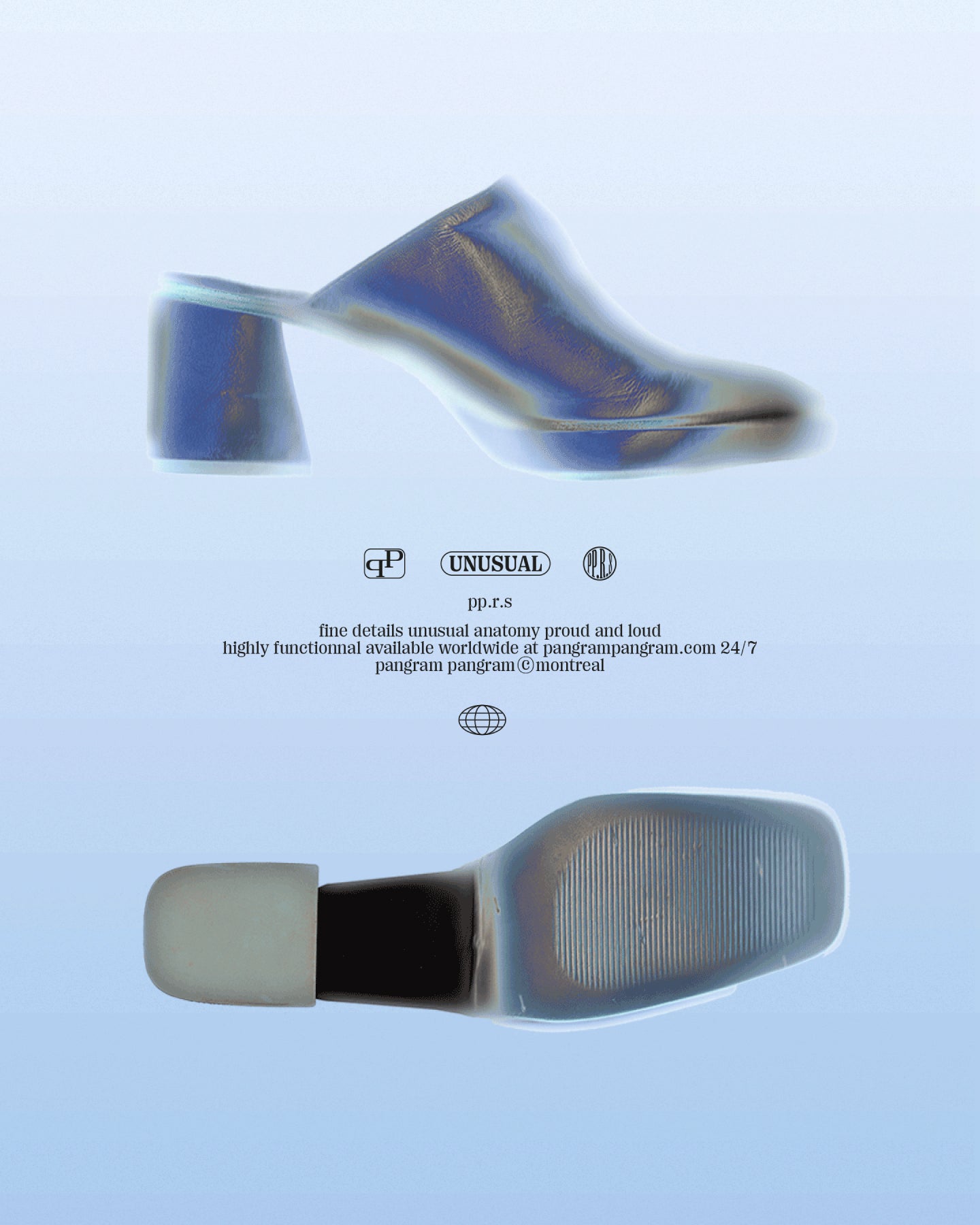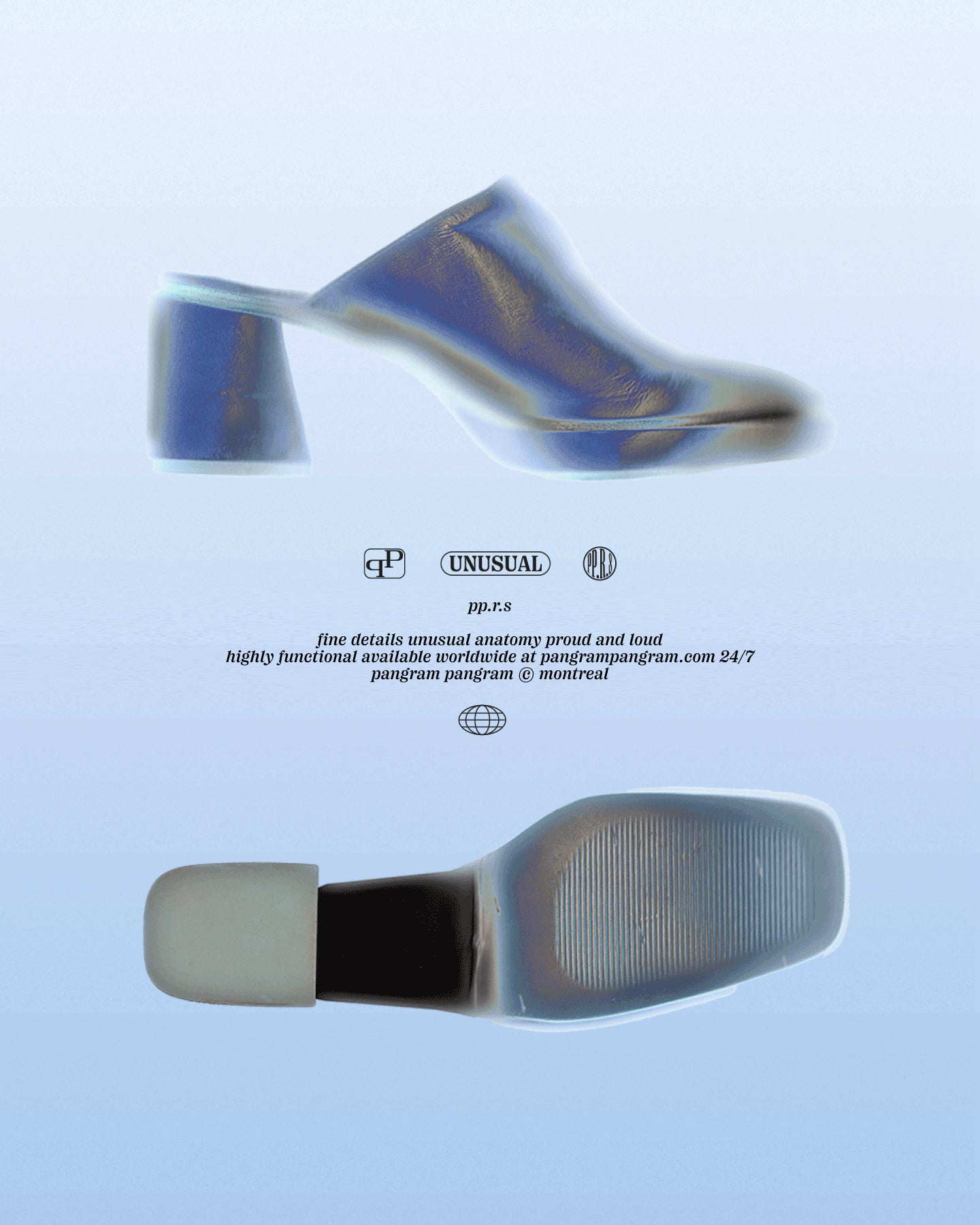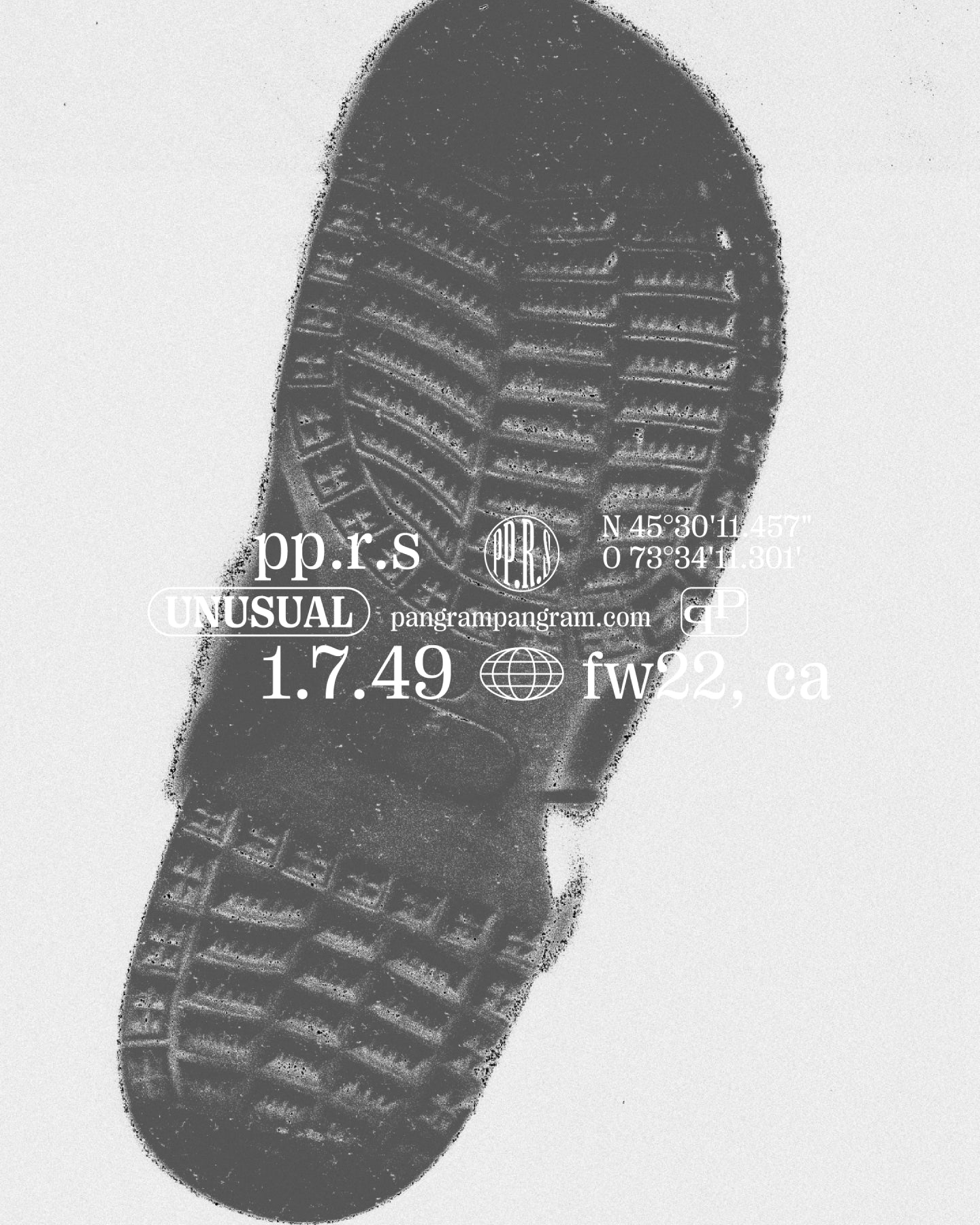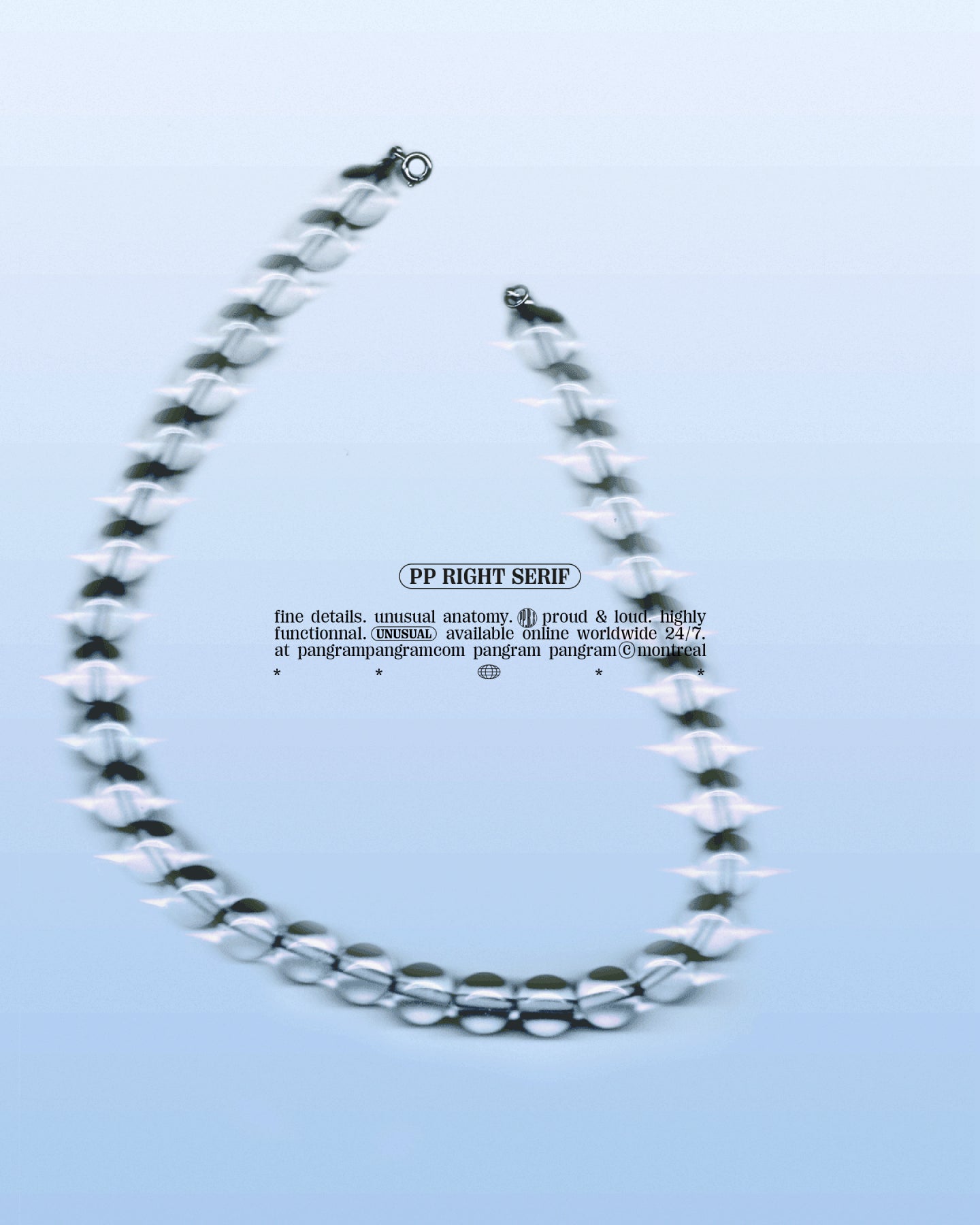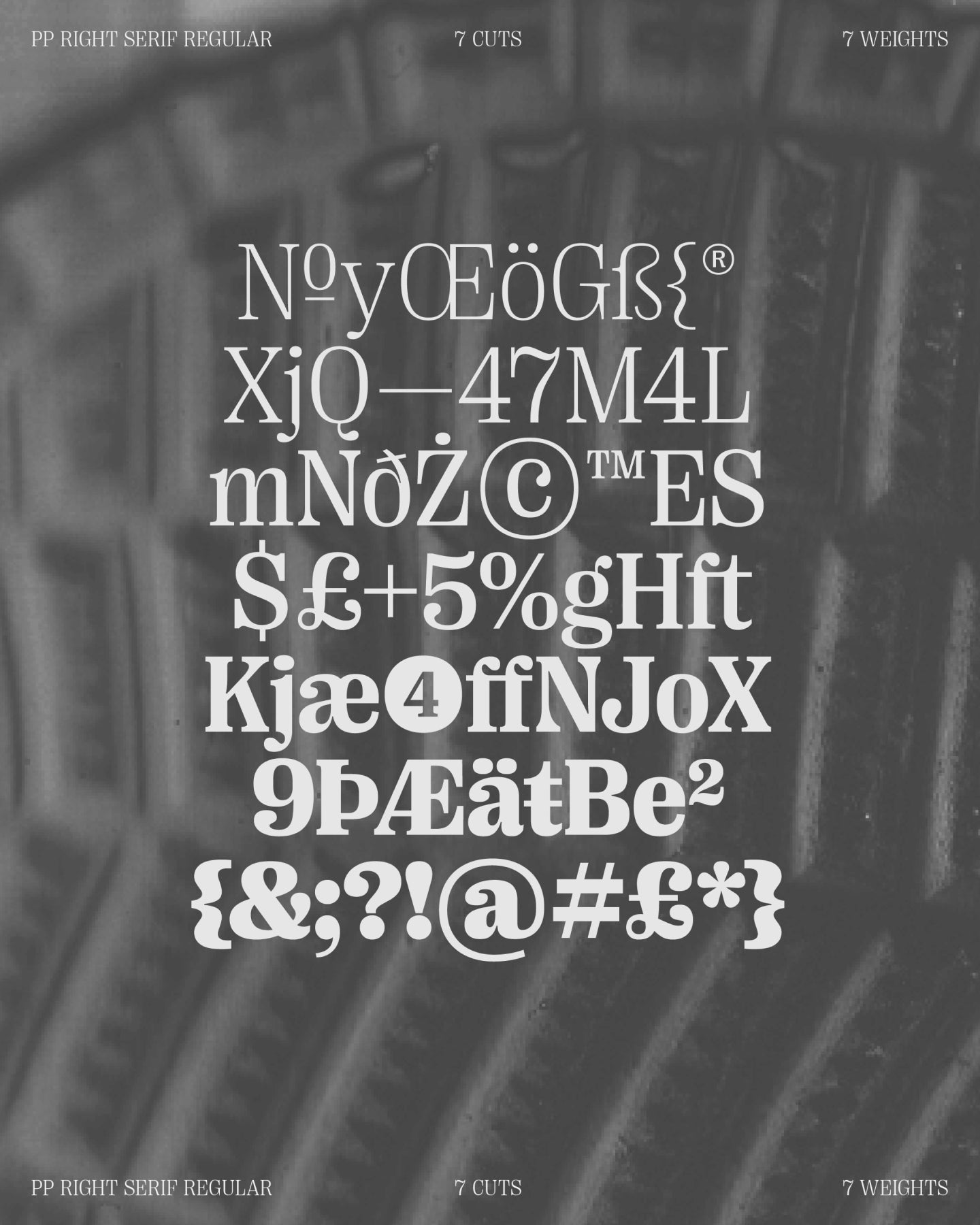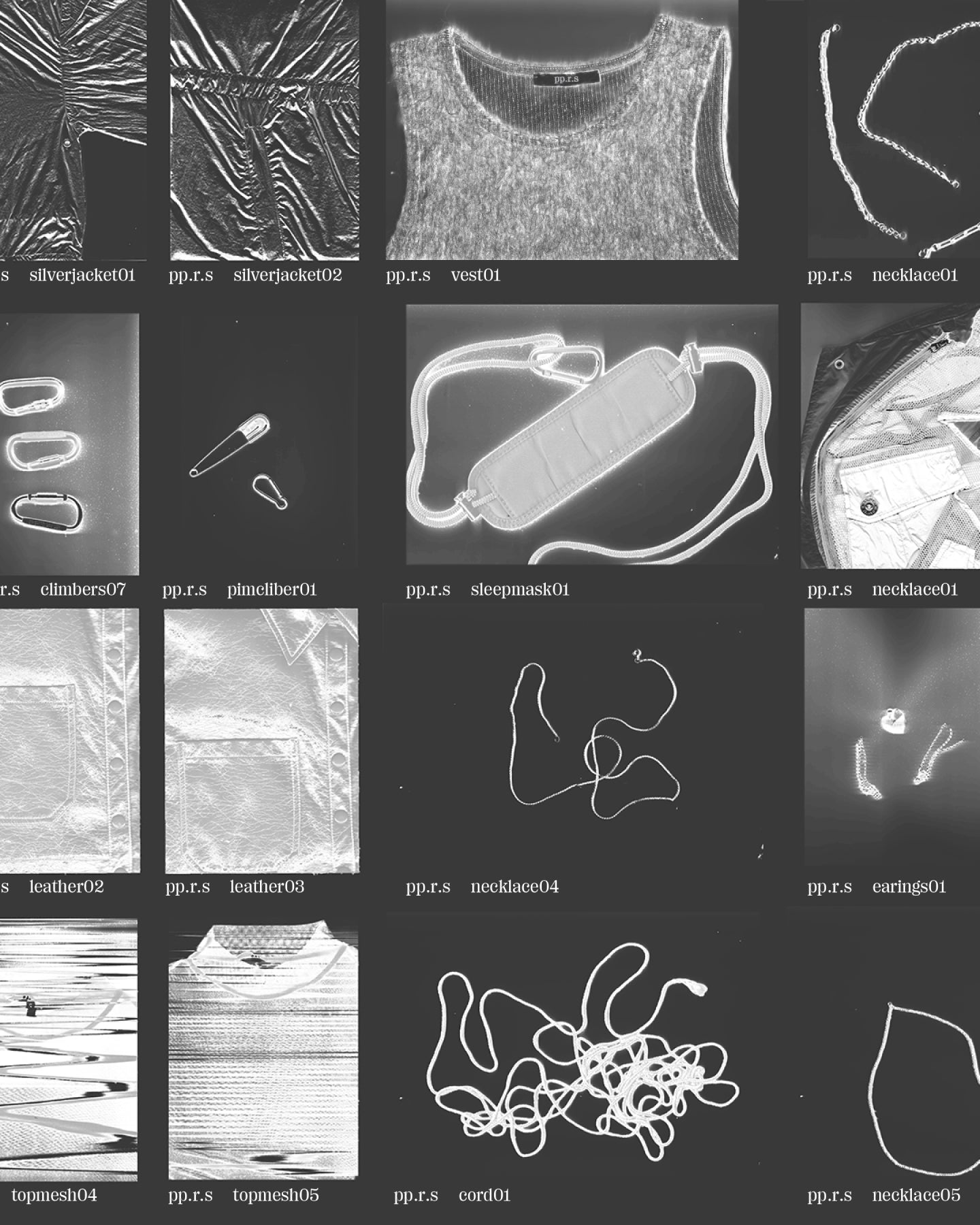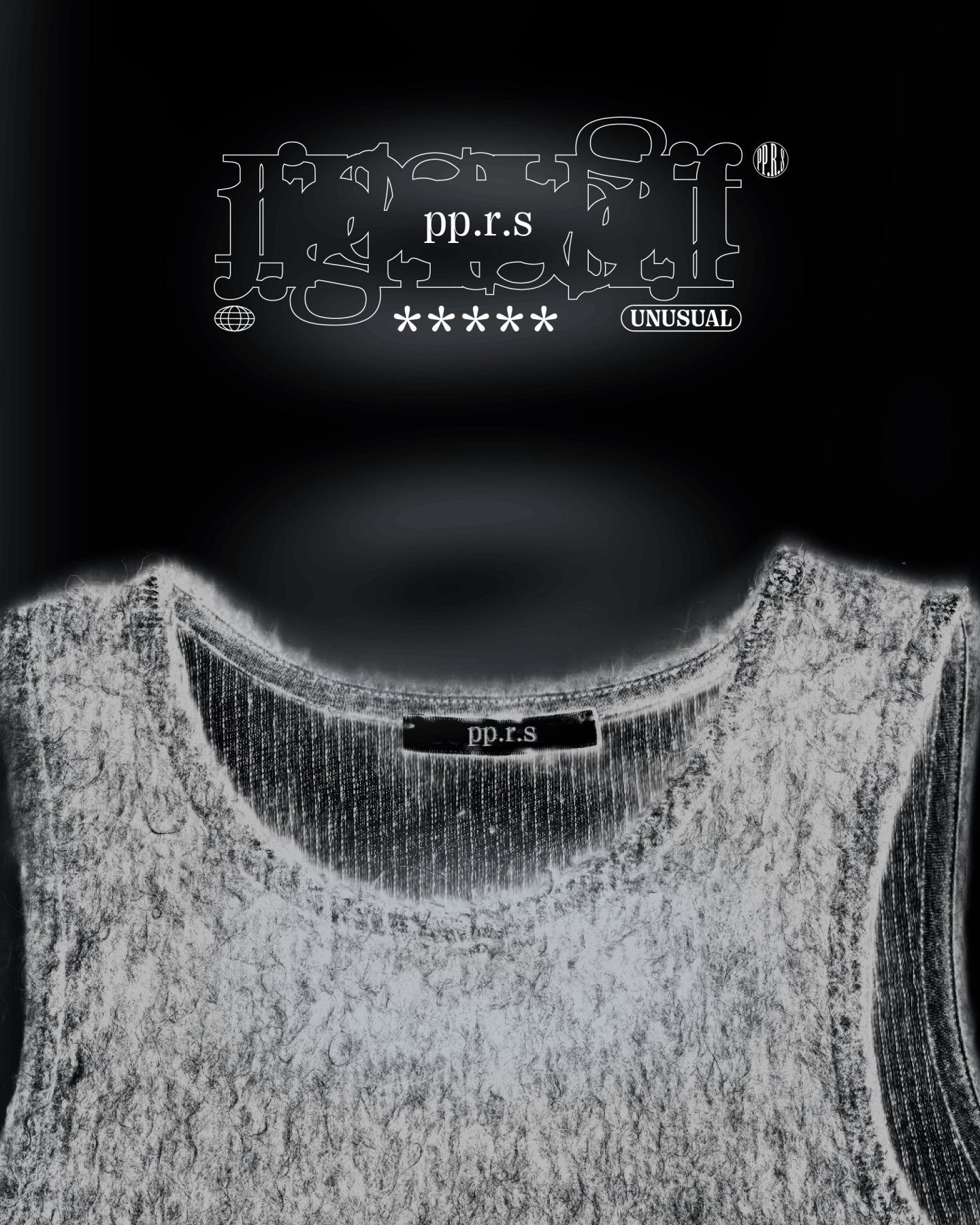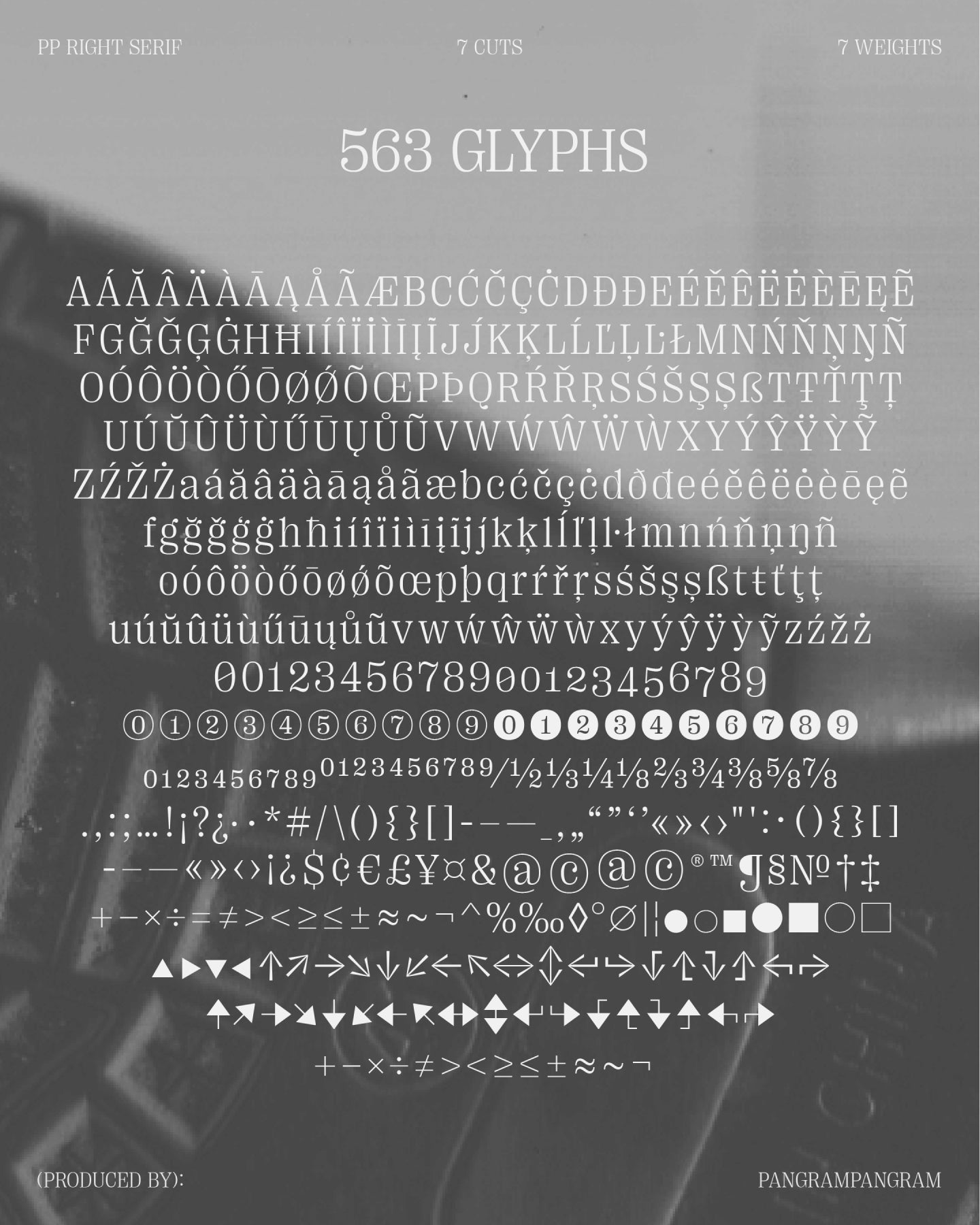
Right Serif Tall
Serif, but make it fashion.
Right Serif Tall
Right Serif grew out of a sans, and came back with style.
Right Serif Tall
Right Serif is not your grandmother’s serif. It’s what happens when a sans-serif spends a summer in Paris, hits the runway, and comes back with a whole new attitude. Born from Right Gothic, this typeface flips the script: instead of stripping down a serif, it builds one up from a grotesk foundation—resulting in something wholly original, highly functional, and quietly rebellious.
Think of it as the typographic equivalent of a collaboration between Helmut Lang, Maison Margiela, and Jil Sander—cool, minimal, experimental, but always intentional. That energy inspired the entire visual campaign: high contrast, inversion, disruption. The kind of design that makes you lean in, then look twice. Right Serif walks the line between structured and strange in the best way. It inherits the large x-height and clean rhythm of its sans-serif roots, but overlays that with sharply defined, slightly unconventional serifs and a moderate contrast that gives it both weight and finesse. It’s got character, but it’s not putting on a show—it’s letting the details speak. It’s a funky multitool: part workhorse, part wildcard. It stretches effortlessly across 7 weights × 7 widths, offering over-the-top display styles and dependable text cuts in the same family. Whether you’re designing a cutting-edge fashion mag, a bold identity system, or simply want a serif that doesn’t feel like every other serif, Right Serif steps up. Use it big, use it smart. It shines in editorial spreads, brand campaigns, and identity work where personality matters. But don’t sleep on its more restrained styles—those Regular cuts are quietly killing it in paragraph text too. Right Serif doesn’t just break the rules of serif design—it never bothered reading them in the first place.
Right Serif Tall is variable
Right Serif Tall's Features
Alternate a
a
Alternate g
g
Circled Numerals
Black Circled Numerals
Arrow
Slashed Zero
Case sensitive forms
Borrowed from Grotesque, Tailored for Now
Imagine if Helmut Lang, Maison Margiela and Jil Sander created a collaborative label, what might the imagery look and feel like? This was our starting point for our “campaign” for Right Serif. We created a series of imagery that felt part of a wider fashion campaign, this tied nicely to the unusual and contrasting anatomy of the characters of Right Serif. We explored these characteristics in the form or imagery that played with inversion & contrast.
Right Serif is a funky multitool, a spiced up workhorse that stretches between being highly functional and having a unique personality. Unlike many other serif typefaces taking roots in history, Right Serif originated as a sans-serif (Right Gothic to be specific) growing serifs. From there, the typeface inherited moderate contrast and features common among grotesks but rare in serifs, notably large x-height and a wide range of variable styles covering 7 weights × 7 widths. Although the family is mostly intended for large and medium sizes, styles close to Regular work really well for paragraphs of smaller-sized text too.